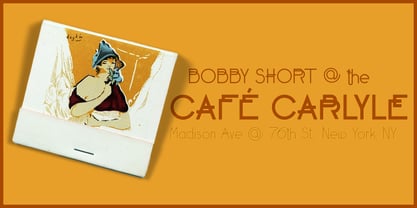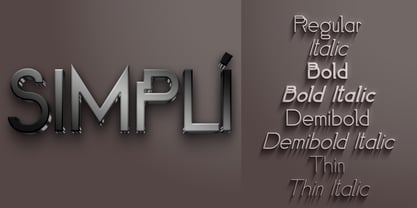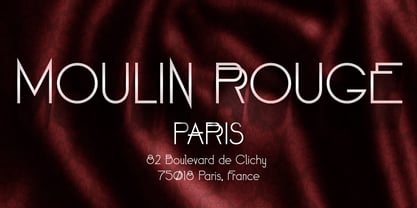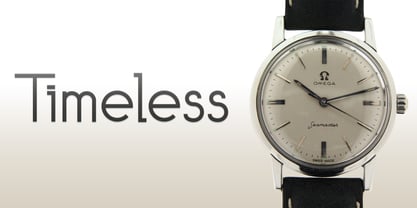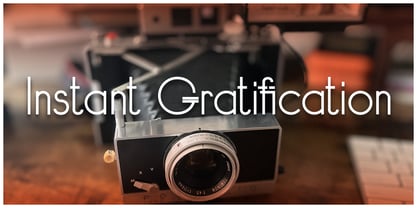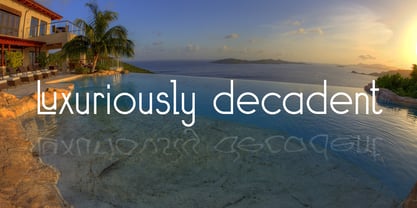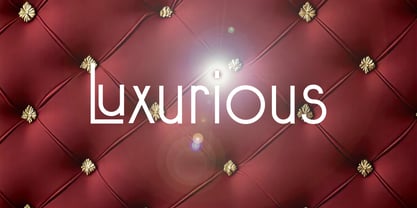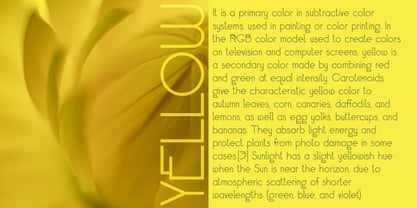
Simpli
by designoMatt
The Simpli Font Family was designed by Matthew Gallagher and published by designoMatt. Simpli contains 8 styles and family package options. More about this family
Simpli is based on some of our other elegant fonts, our love of the “arts & crafts” style, and the wonder of “what if?”. WE focused on making a simple and elegant stroke-based set of characters/glyphs and expanding that to the full Latin characters with a few alternates and ligatures.  The font’s first use is for decorative headlines, logos, and the like but is also easy to read when typeset.